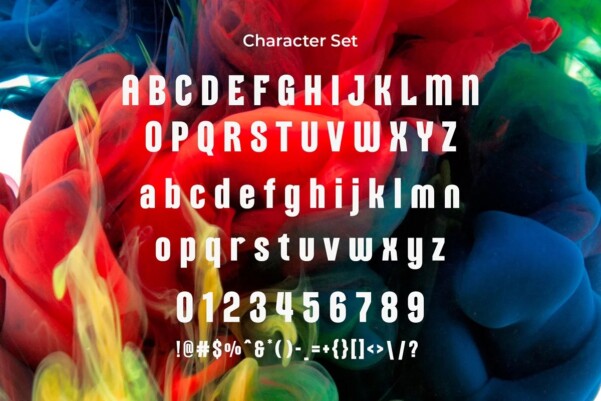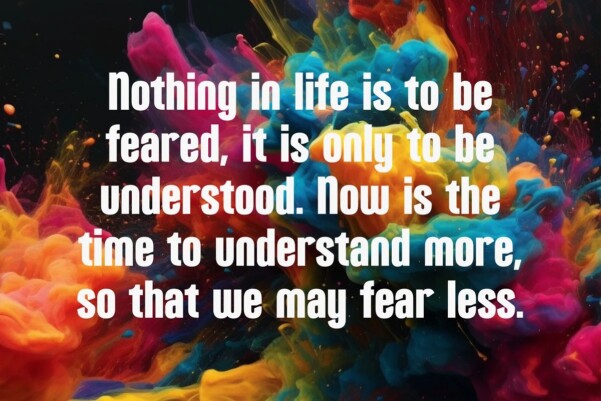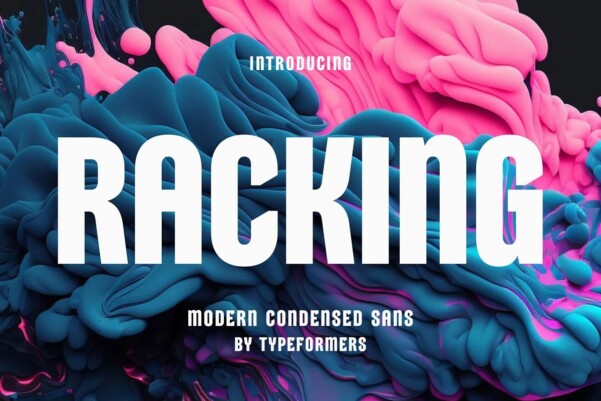
Racking Font
Racking Font – Modern Condensed Sans. Racking is a modern and simple font, best used as a display for headings, logos, branding, magazines, product packaging and invitations.